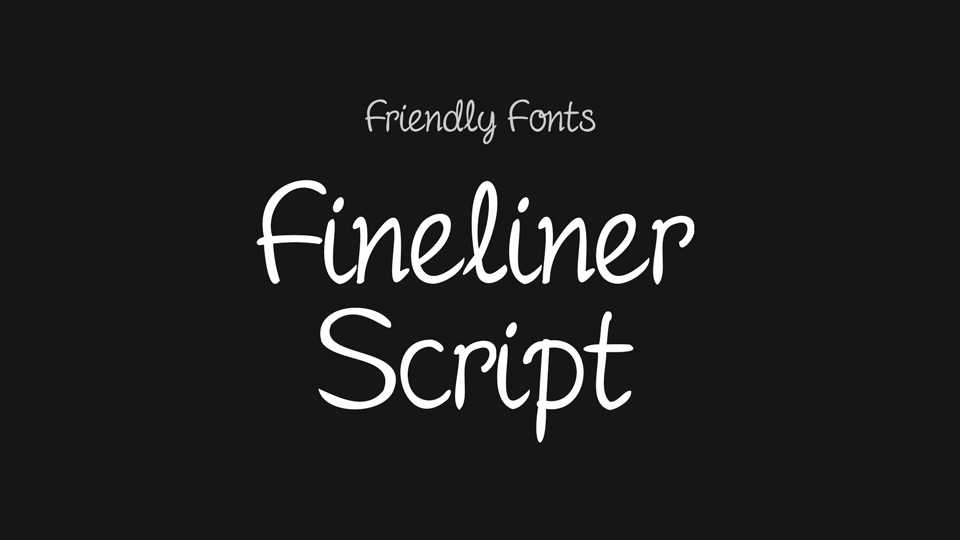
Download Fineliner Script font, a simple and casual handwritten typeface that will add a natural touch to any project. Handcrafted with care, Fineliner Script font is well suited to create everything from quotes to logos – all with an authentic feel.